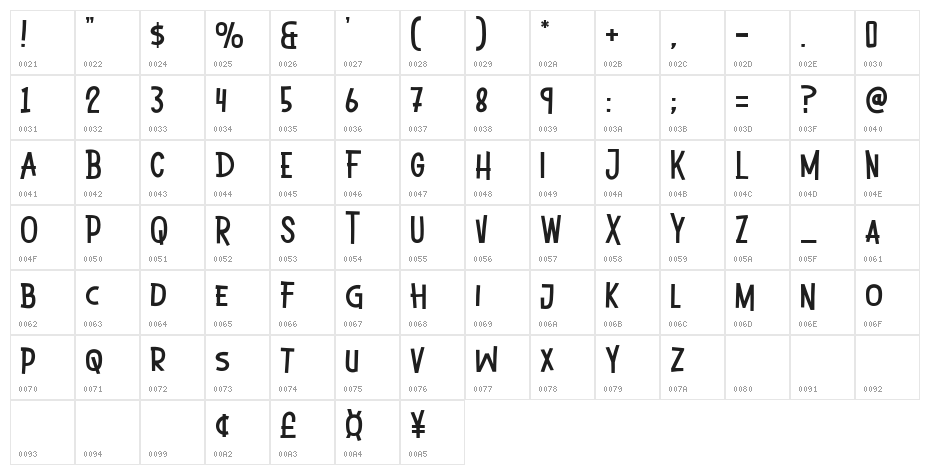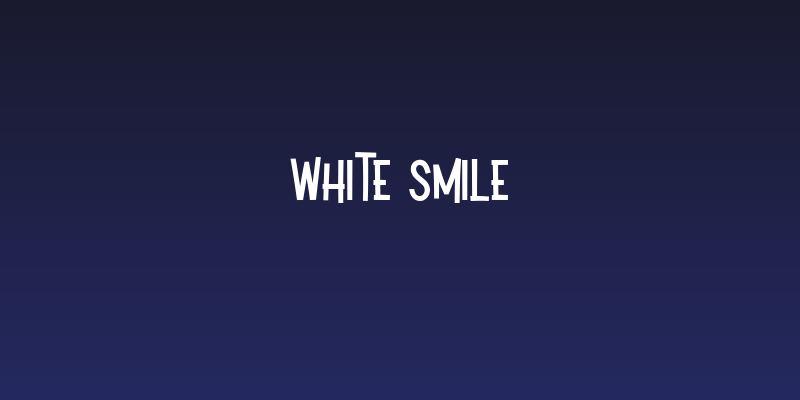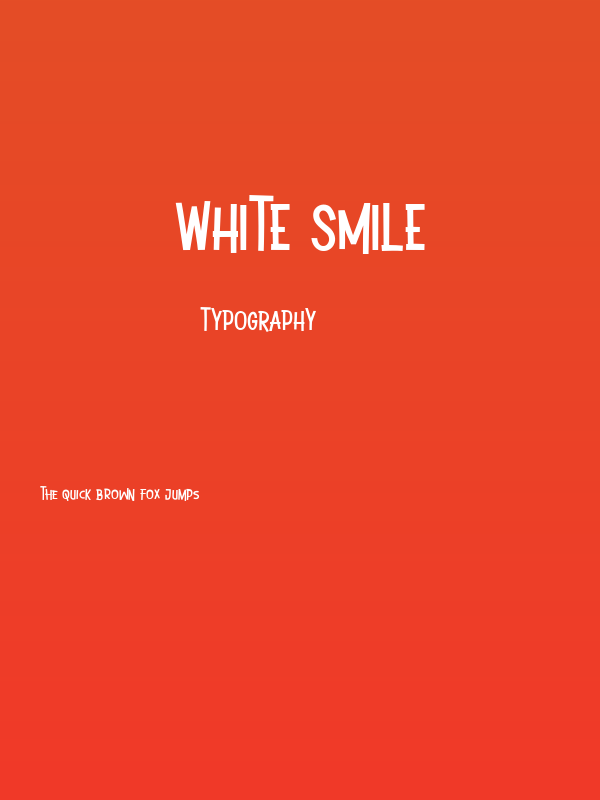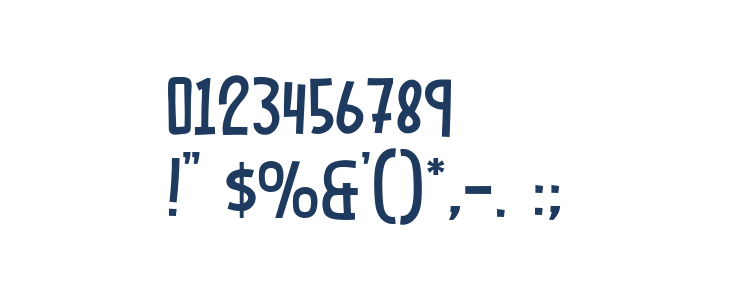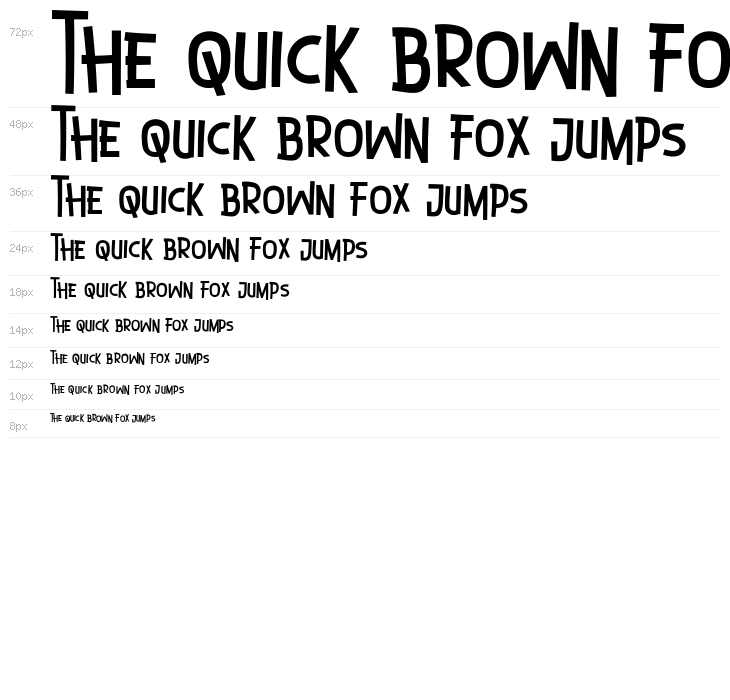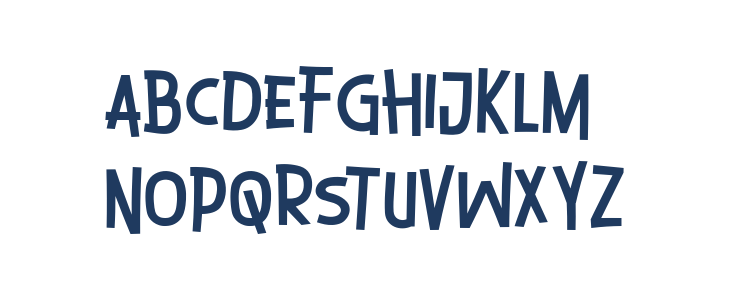
White Smile Font
White Smile Description
This font features a playful and whimsical style, characterized by its irregular and slightly exaggerated letterforms. The uppercase and lowercase letters exhibit a hand-drawn quality, with uneven strokes and varying widths that add to its charm. The numbers and special characters maintain this playful aesthetic, ensuring consistency across the typeface. The overall appearance is casual and friendly, making it suitable for projects that require a touch of personality and informality. The font's unique style is ideal for creative designs that aim to stand out and convey a sense of fun and approachability.
WHITE-SMILE UPPERCASE
WHITE-SMILE LOWERCASE
WHITE-SMILE OTHER CHARS
| Proposed Projects | Ideal for children's books, greeting cards, playful branding, and casual event invitations. |